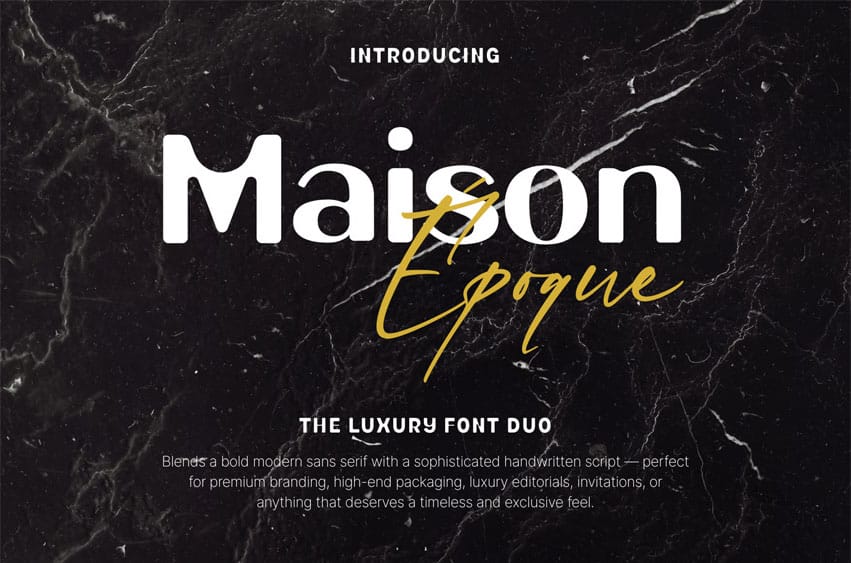
Maison Époque Font is a stunning blend of a bold modern sans serif and a sophisticated handwritten script, designed to bring timeless elegance and exclusivity to your projects. This versatile duo perfectly balances strength and finesse, making it ideal for premium branding and high-end design.
Perfect for:
- Luxury branding & elegant logos
- High-end packaging design
- Fashion & lifestyle editorials
- Premium wedding invitations
- Perfume, champagne, and boutique promotions
- Two complementary styles: Modern Sans Serif & Handwritten Script
- Complete uppercase, lowercase, numbers, and punctuation
- Elegant kerning & balanced spacing for professional results
Whether you’re creating for a high-fashion label, a premium product launch, or a refined editorial spread, Maison Époque delivers sophistication with every letter.